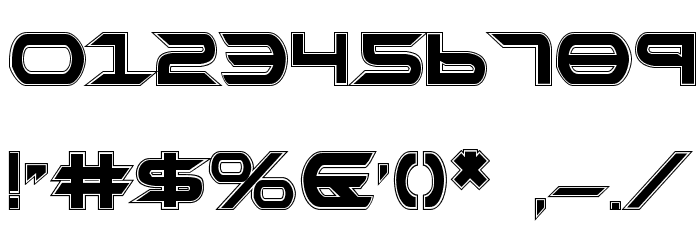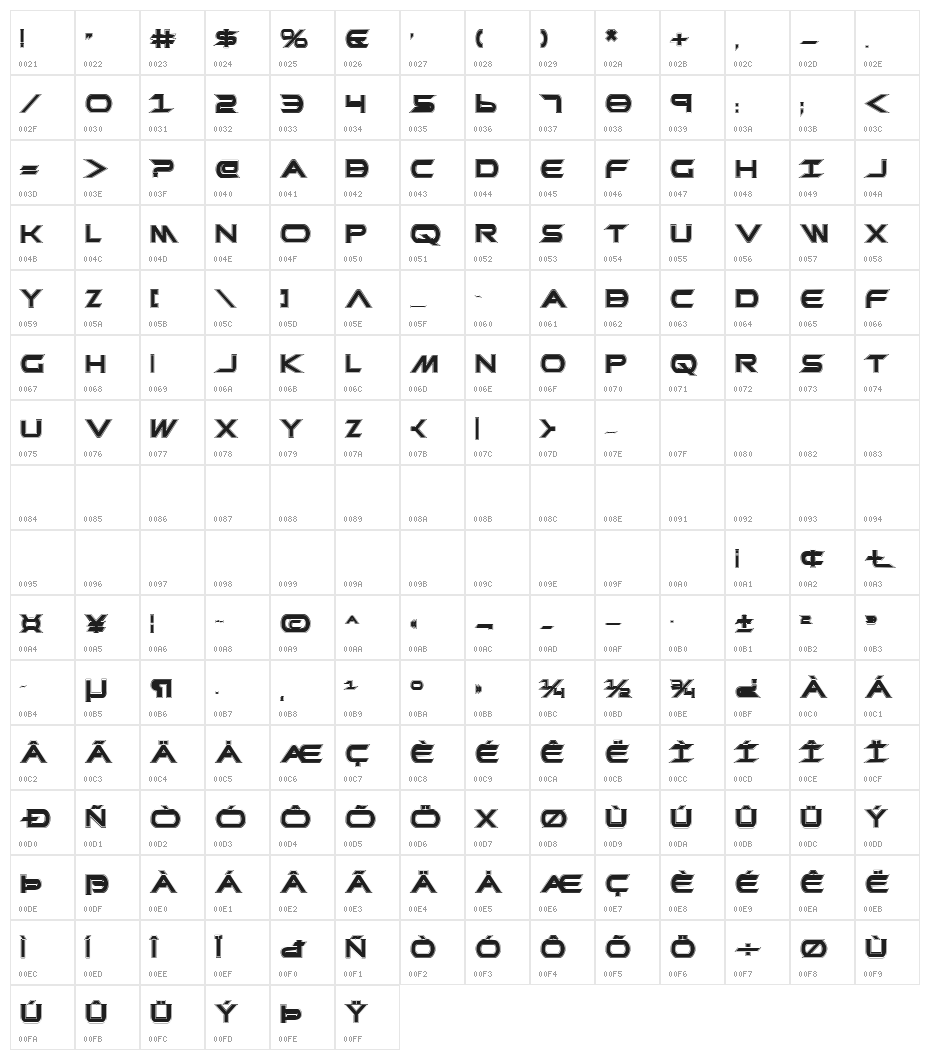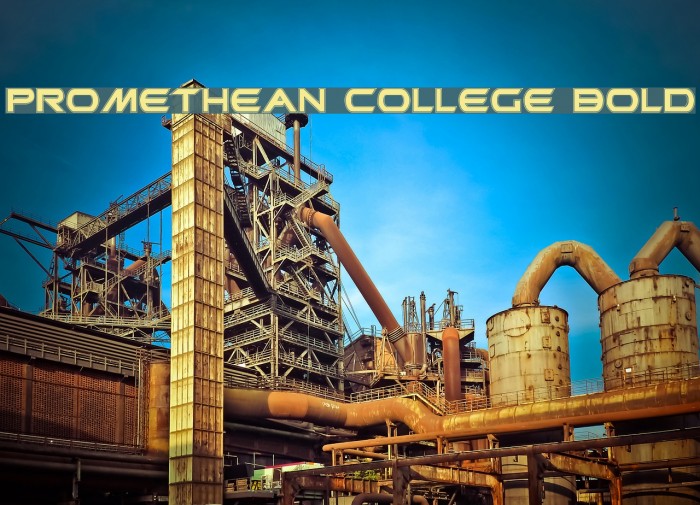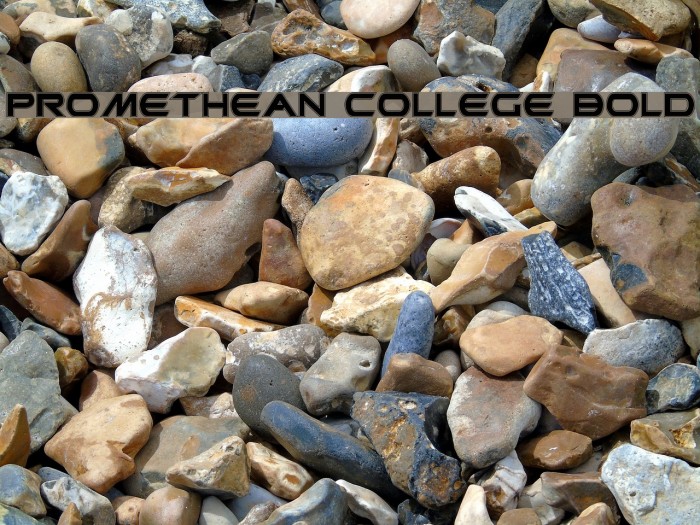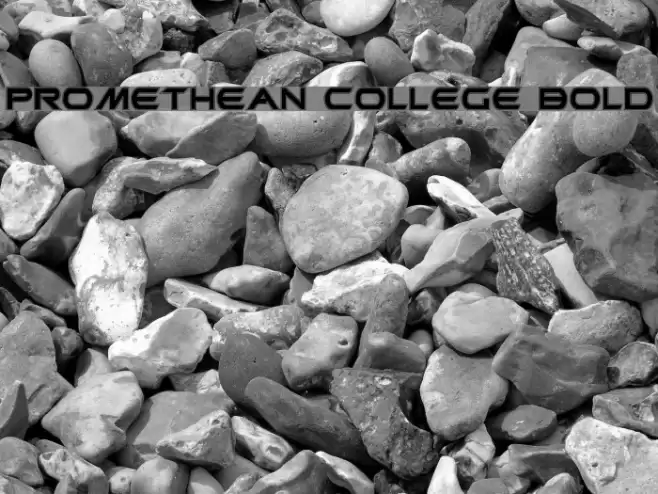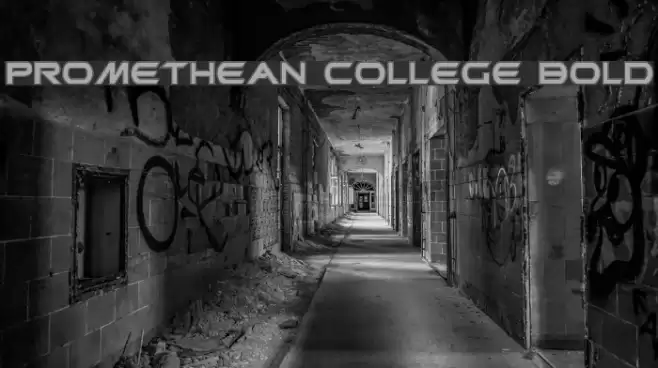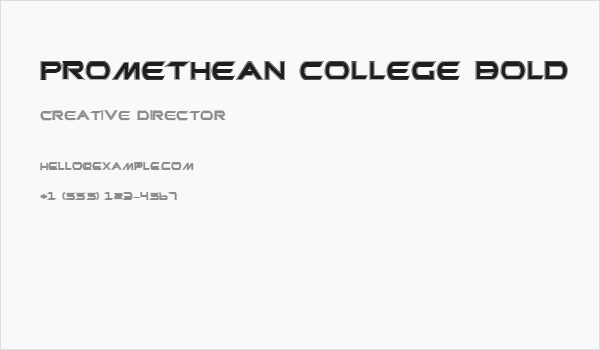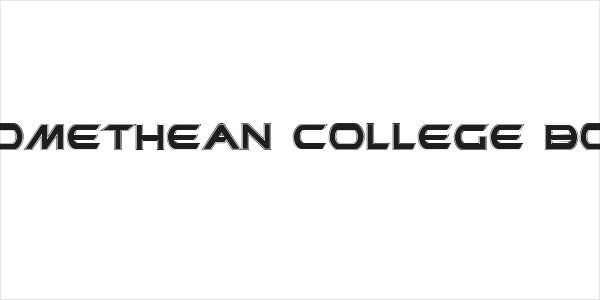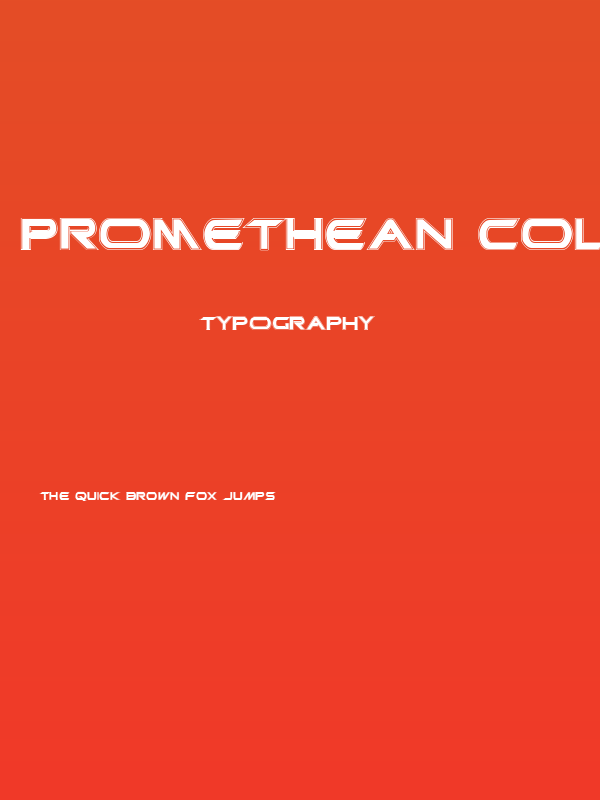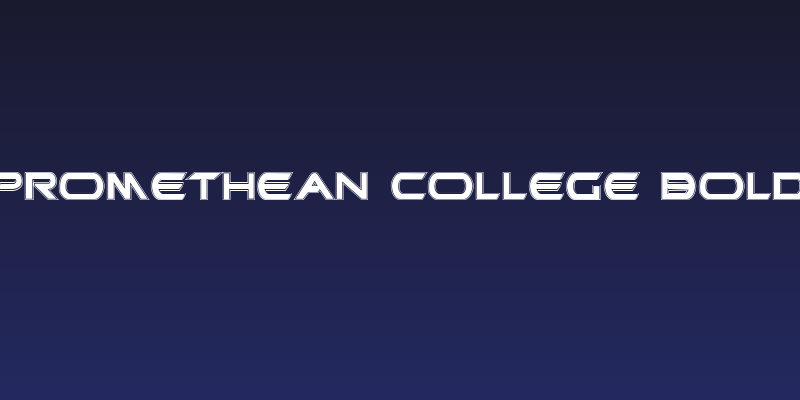
Promethean College Bold Font
Promethean College Bold Description
This font features a bold, futuristic design with sharp angles and a distinct geometric structure. The characters are outlined with a double line effect, creating a sense of depth and dimension. The uppercase letters are particularly striking, with a consistent width and height that gives a uniform appearance. The numerals and special characters maintain the same boldness and style, ensuring cohesion across all text elements. This font is ideal for projects that require a modern and dynamic look, such as technology branding, sci-fi themes, or video game titles.
| Proposed Projects | Ideal for technology branding, sci-fi themes, video game titles, and modern posters. |